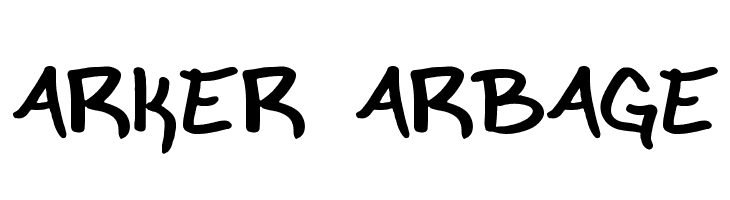
A bold, hand-drawn marker-style font with a casual and expressive look.
A bold, rounded font with a handwritten marker style.
A bold, expressive brush-style font with dynamic, hand-drawn characteristics.
A bold, handwritten-style font with a casual, marker-like appearance.
A playful, handwritten-style font with bold, rounded characters.
A rough, hand-drawn font with a marker-like texture.
A playful, handwritten-style font with bold, dynamic strokes.
A playful, hand-drawn font with a bold, marker-like style.
A playful, hand-drawn font with bold, irregular strokes and a whimsical style.